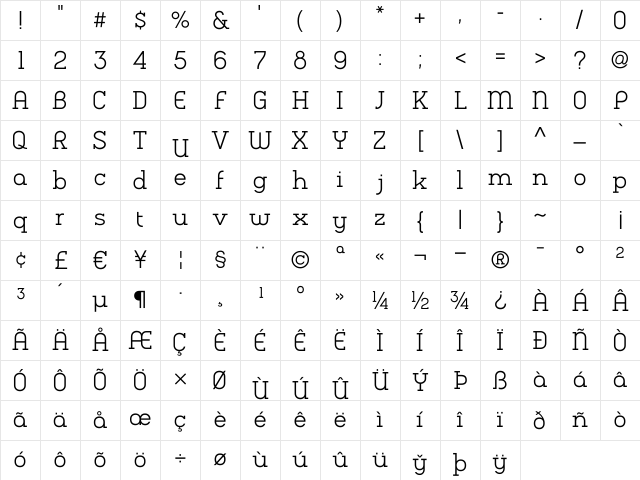
Complete Charifa SerifLight Regular glyph index. Displaying only characters natively supported by Charifa SerifLight Regular font.
Charifa SerifLight carries the refined structure of traditional serif typography, with bracketed terminals and considered proportions that communicate credibility and craft. Its slender proportions lend an understated elegance to any composition.